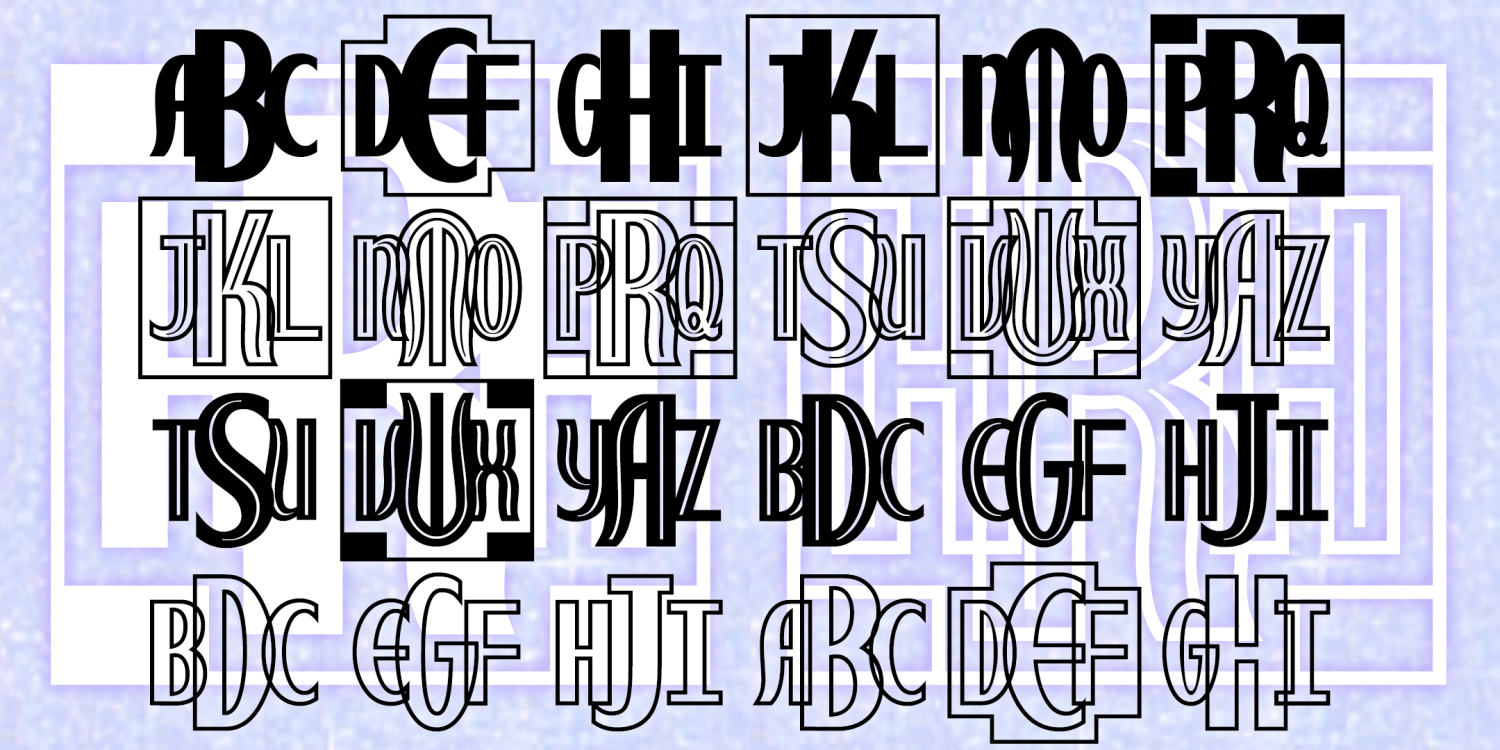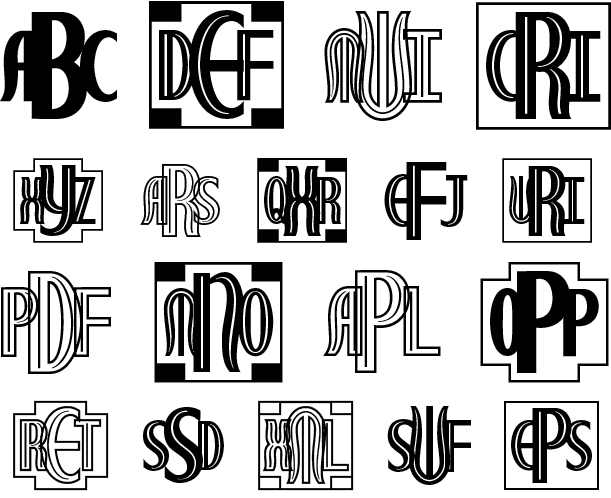
HomeFont BrosDingbatRoyal Wedding Monograms DingbatMonograms Royal Wedding Monograms FacebookTwitterPinterestWhatsApp 1 of 2 About Royal Wedding Monograms were inspired in part by the trailer (not the credits) for the 1951 MGM musical "Royal Wedding", a stylish take on Lombardic letterforms.  DOWNLOAD NOW People also explored Verbena Font Sobbers Typeface Font Old New England Juliette Font Sarmiyati Font Minggu Happy Font Erica Font Blackiron Font Quasimodo Font 96 0 TagsRoyal Wedding Monograms Font Previous articleRolloglideNext articleGainsborough 2.0 LEAVE A REPLY Cancel reply Comment: Please enter your comment! Name:* Please enter your name here Email:* You have entered an incorrect email address! Please enter your email address here Website: Save my name, email, and website in this browser for the next time I comment. Personal Use Free Good Timing – Bold Personal Use Free Read more about this font Cretino Personal Use Free Read more about this font Dandelions Bloom Personal Use Free Read more about this font Screengem Personal Use Free Read more about this font BLOG Using Fonts in Digital Marketing: Tips to Strengthen Your Brand Identity In the realm of digital marketing, every visual element plays a crucial role in shaping a brand's identity, and fonts are no exception. The... Elegant Wedding Invitation Fonts – Handwritten & Script Fonts Free vs Paid Fonts: Why Investing in Premium Fonts Is Worth It Transform Your Website: Elevate Your Typography with 7 Best Web Font Generators